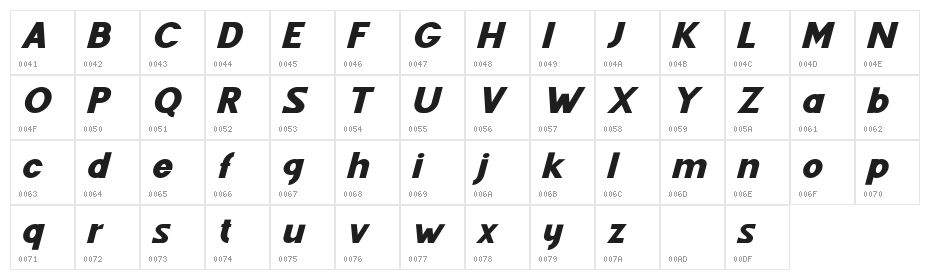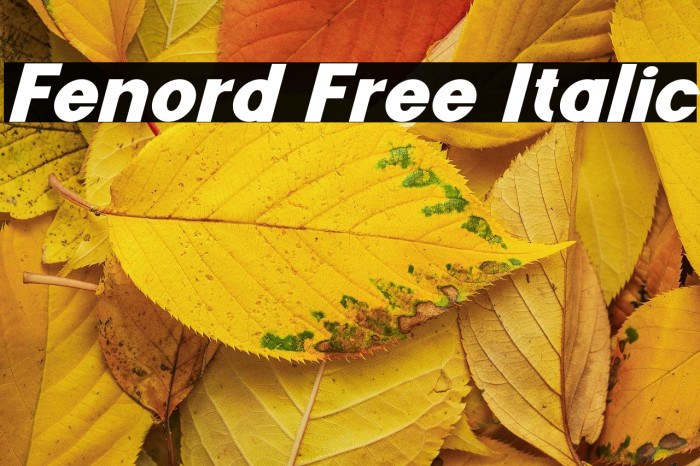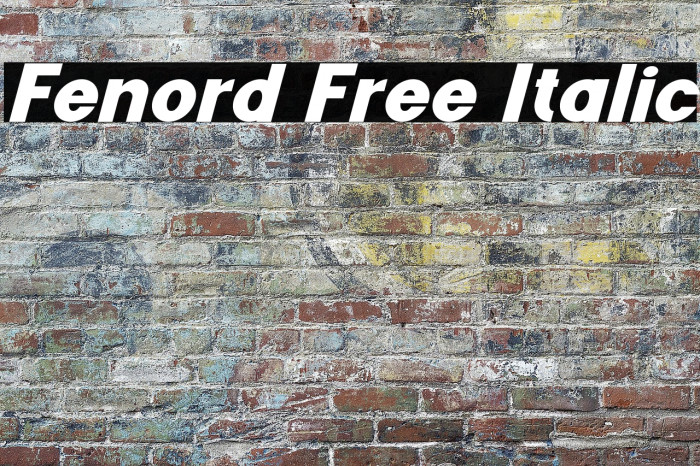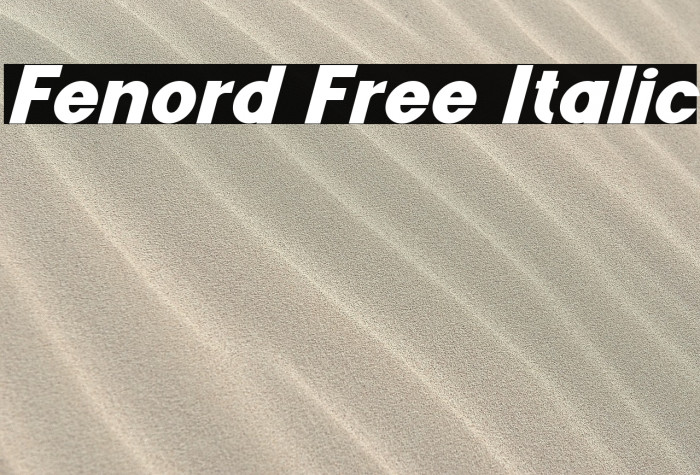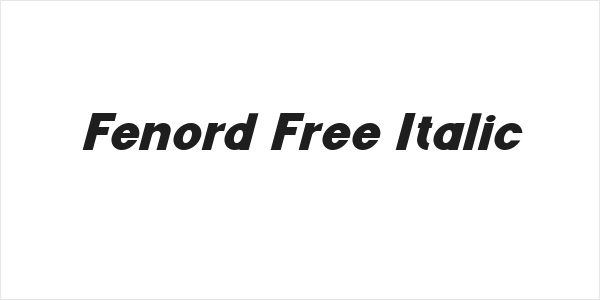
Fenord Free Italic Font
Fenord Free Italic Description
This font features a dynamic and modern italic style, characterized by its slanted and bold letterforms. The strokes are smooth and consistent, providing a sense of movement and energy. The uppercase and lowercase letters are well-proportioned, with a slight forward tilt that enhances readability while adding a touch of elegance. The numerals and special characters maintain the same stylistic approach, ensuring uniformity across all text elements. This font's boldness and italic nature make it suitable for creating impactful headlines and titles.
| Proposed Projects | Ideal for branding, advertising, and editorial design projects where a strong, modern aesthetic is desired. |